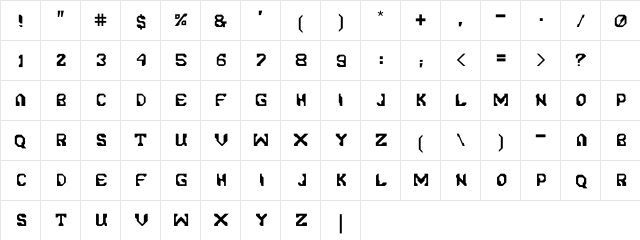
Genospace Regular
Design Context for Genospace Typeface
Genospace offers clean, dependable letterforms without strong stylistic allegiance, making it a practical choice for designers who need flexibility.